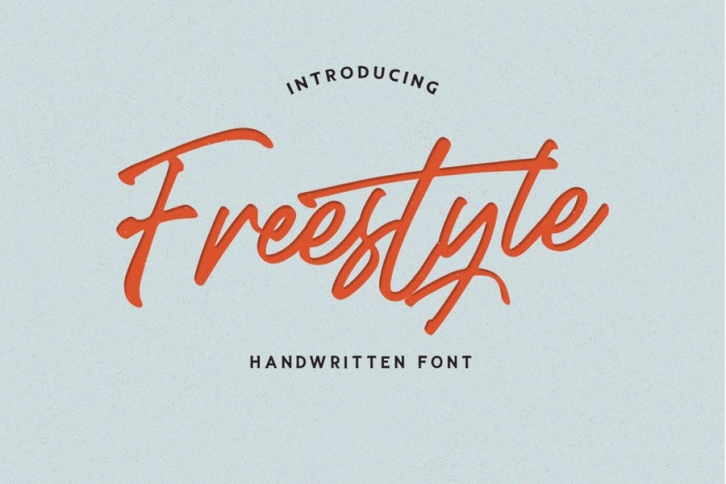
Freestyle is handwritten script typeface, bold, clean and rough. With a professional touch makes this font more elegant and suitable for all types of projects you are working on. There are so many variations on each character. Include Opentype stylistic alternates. You are able to create so many different typographical layouts easily and quickly. Make sure you use OpenType program and simply open Glyph Palette to access all of the glyphs.
This font is suitable for t-shirts, signage, logos, headlines, branding, packaging,clothing apparel, posters, letterhead, greeting cards,quotes, wedding, will add a beautiful touch of handmade love to your projects etc. That are combined into one pretty package. You will see this combination more in badges logo.